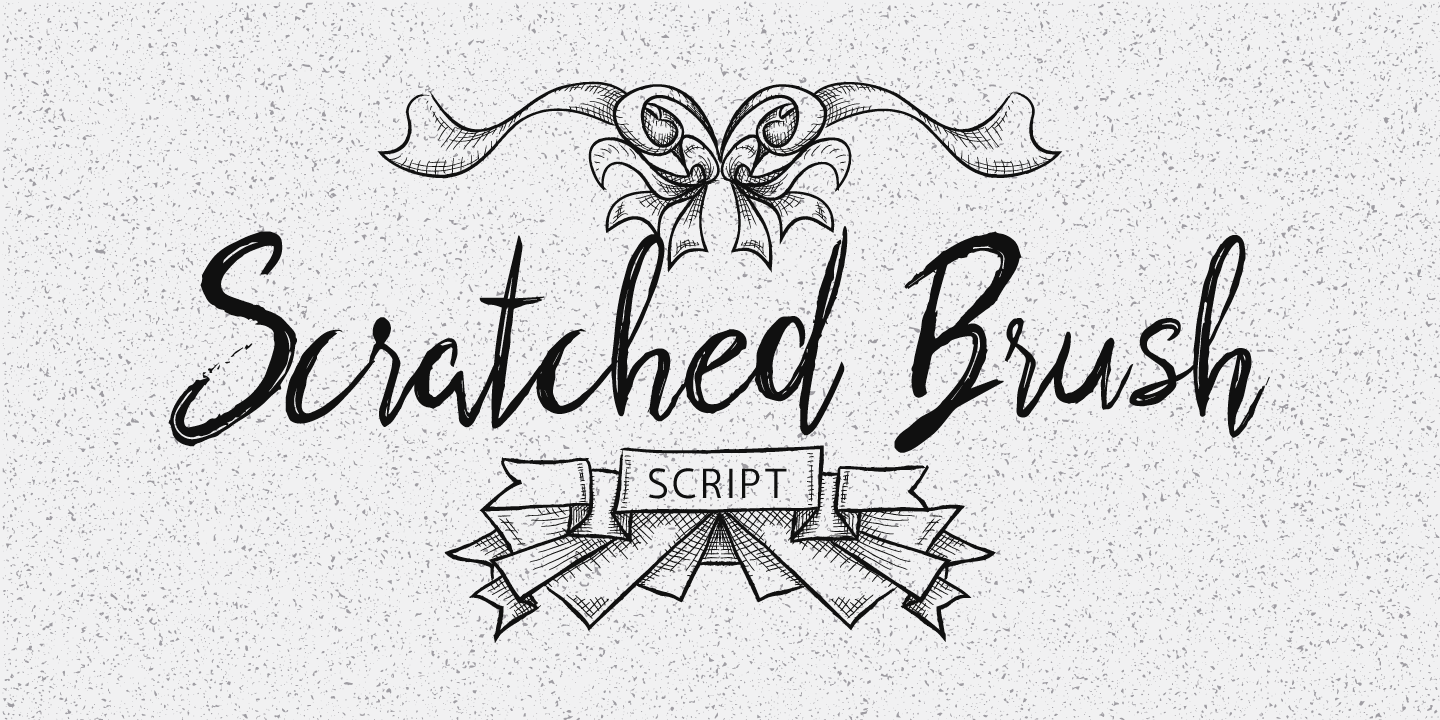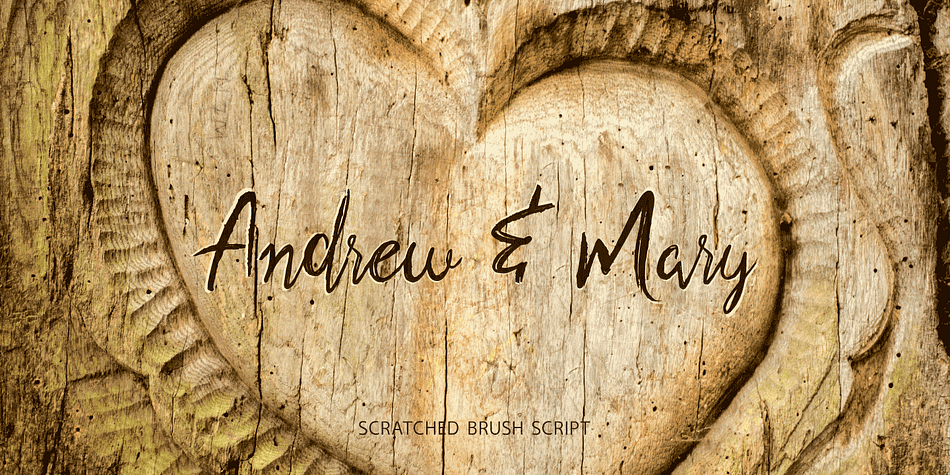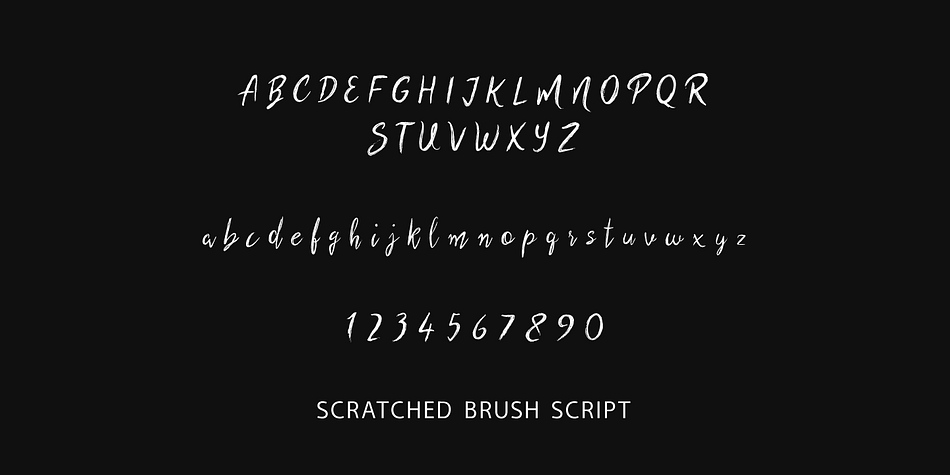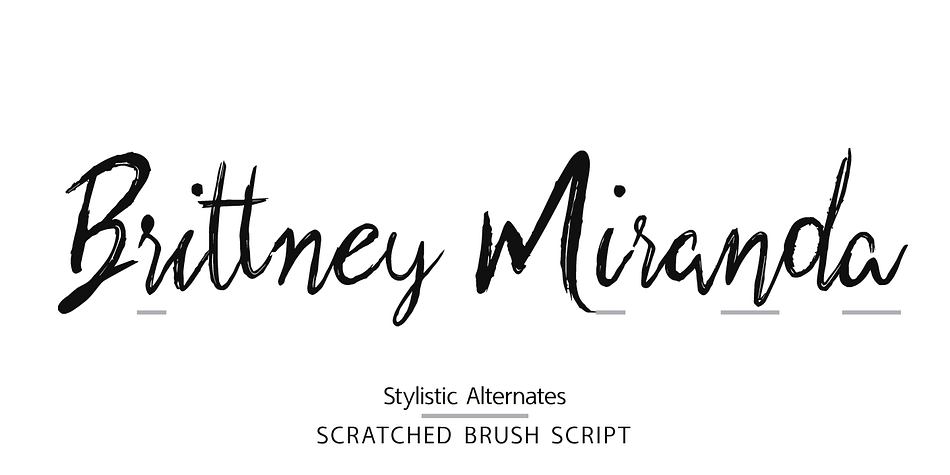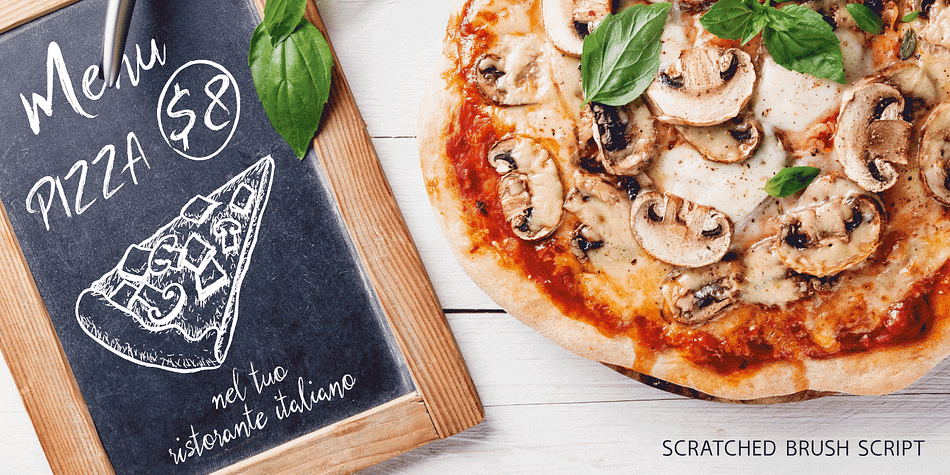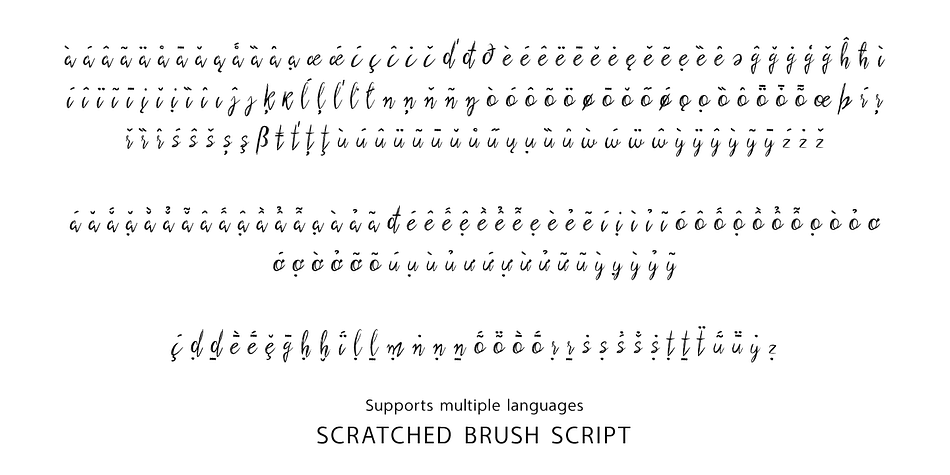
Scratched Brush Script is a brush script and modern calligraphy font published by Pedro Teixeira.
Scratched Brush Script is a casual script made with a dry brush that includes alternate lower case characters to customize your work.